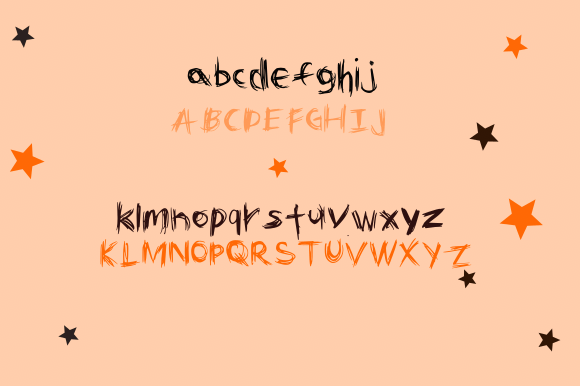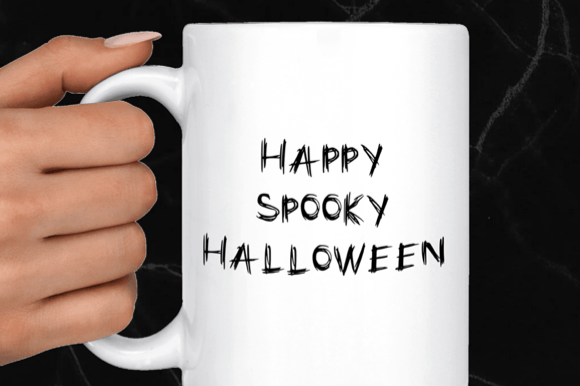
Creepy October Font
About Creepy October Font
“Creepy October” is an enjoyable and eerie handwritten font that brings a playful yet spooky vibe to your designs. With its whimsical and slightly quirky style, this font has the power to add a unique touch to your projects. Feel confident in incorporating it into your work, as you’re sure to be delighted by the results it produces.
The charm of “Creepy October” lies in its ability to combine fun and spookiness. Its irregular strokes and hand-drawn quality create a lively and slightly unsettling character that is perfect for Halloween-themed designs, party invitations, spooky stories, and more. This font can infuse a sense of excitement and creativity into your projects.
One of the notable strengths of “Creepy October” is its adaptability. It can easily fit into various design themes and aesthetics. Whether you want to create a lighthearted and fun atmosphere or embrace the eerie and mysterious, “Creepy October” can be your go-to font for a wide range of creative endeavors.
When you use “Creepy October” in your designs, you can expect your projects to stand out and leave a memorable impression. Its playful yet spooky nature has the power to capture the attention of your audience and create a sense of engagement and intrigue.
In summary, “Creepy October” is more than just a font; it’s a creative tool that can enhance your design ideas, especially when you’re looking to add a touch of whimsy and spookiness. So, don’t hesitate to confidently add “Creepy October” to your projects, and witness how it brightens up your designs with its unique charm and character!